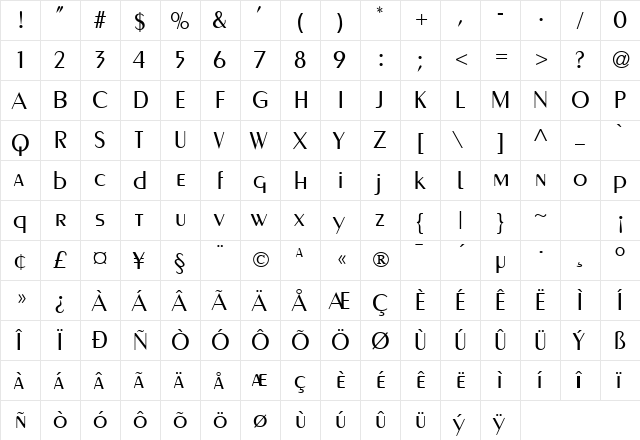
Metropol 95 Regular
Design Context for Metropol 95 Typeface
Metropol 95 takes a measured approach to typography — its balanced proportions and neutral character make it a reliable workhorse for both digital and print work.